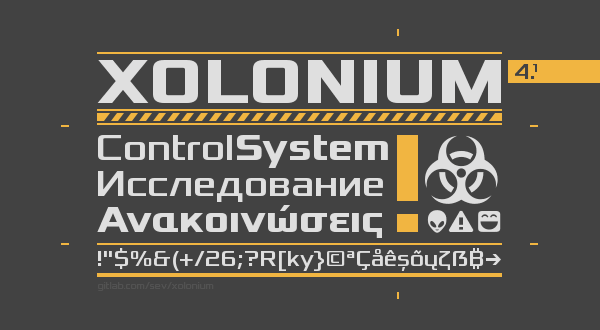
Font name: | Xolonium |
Author: | Severin Meyer |
Note by Severin Meyer | |
A futuristic typeface, with focus on legibility. Supports Latin, Greek, and Cyrillic scripts, and includes various pictograms and emoticons. |